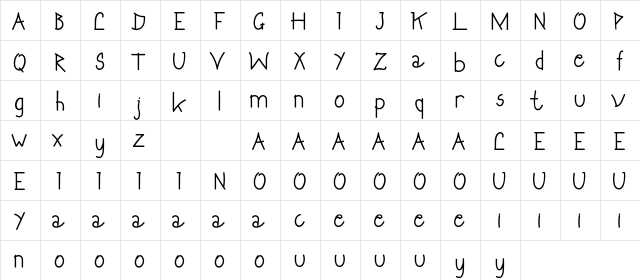
Eberta Light Demo Regular
| Foundry | Edric Studio |
| Designer | Yasri Ainun |
Design Context for Eberta Light Demo Typeface
Eberta Light Demo offers clean, dependable letterforms without strong stylistic allegiance, making it a practical choice for designers who need flexibility. The delicate stroke weight brings airiness and refinement to layouts.